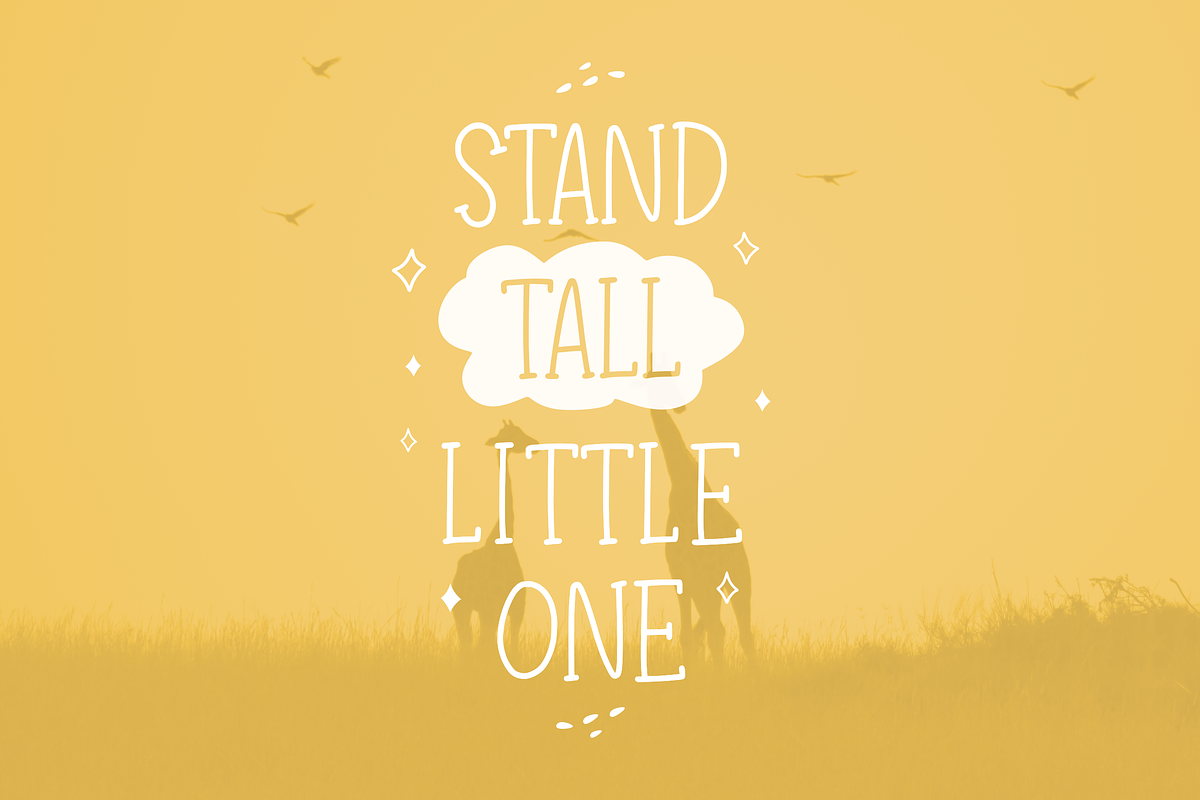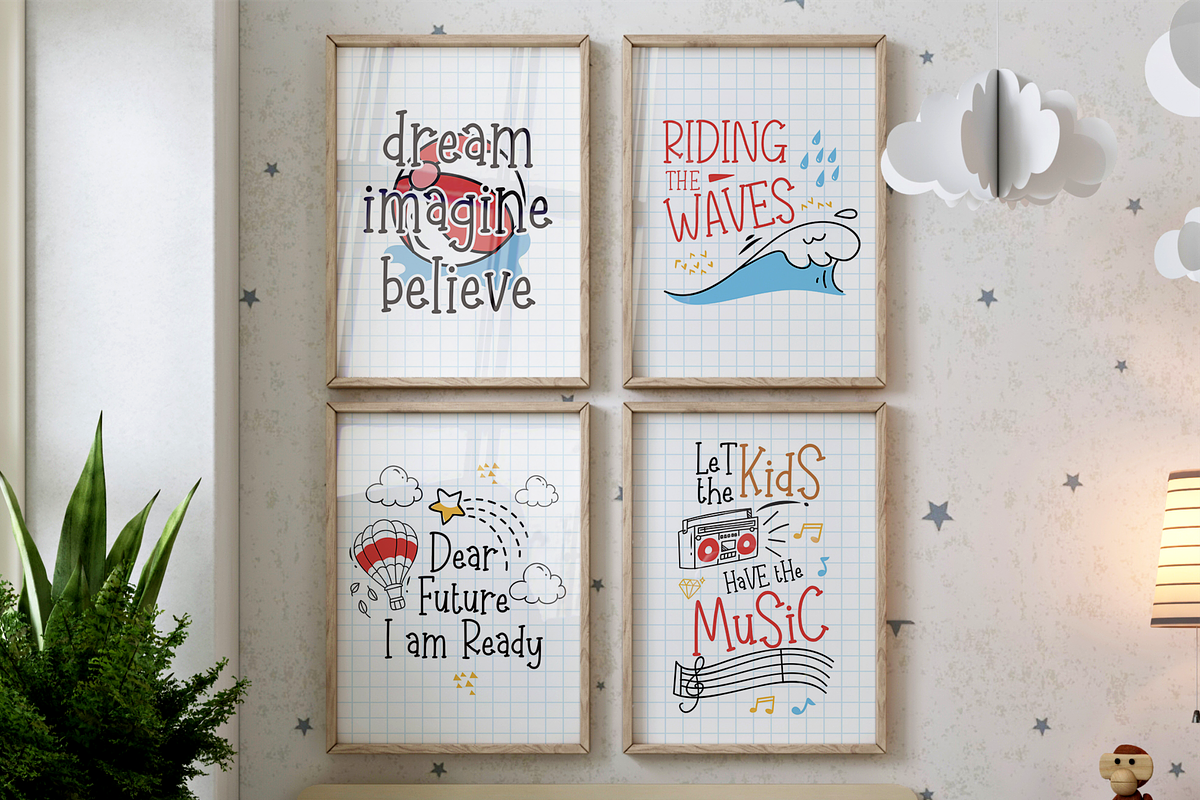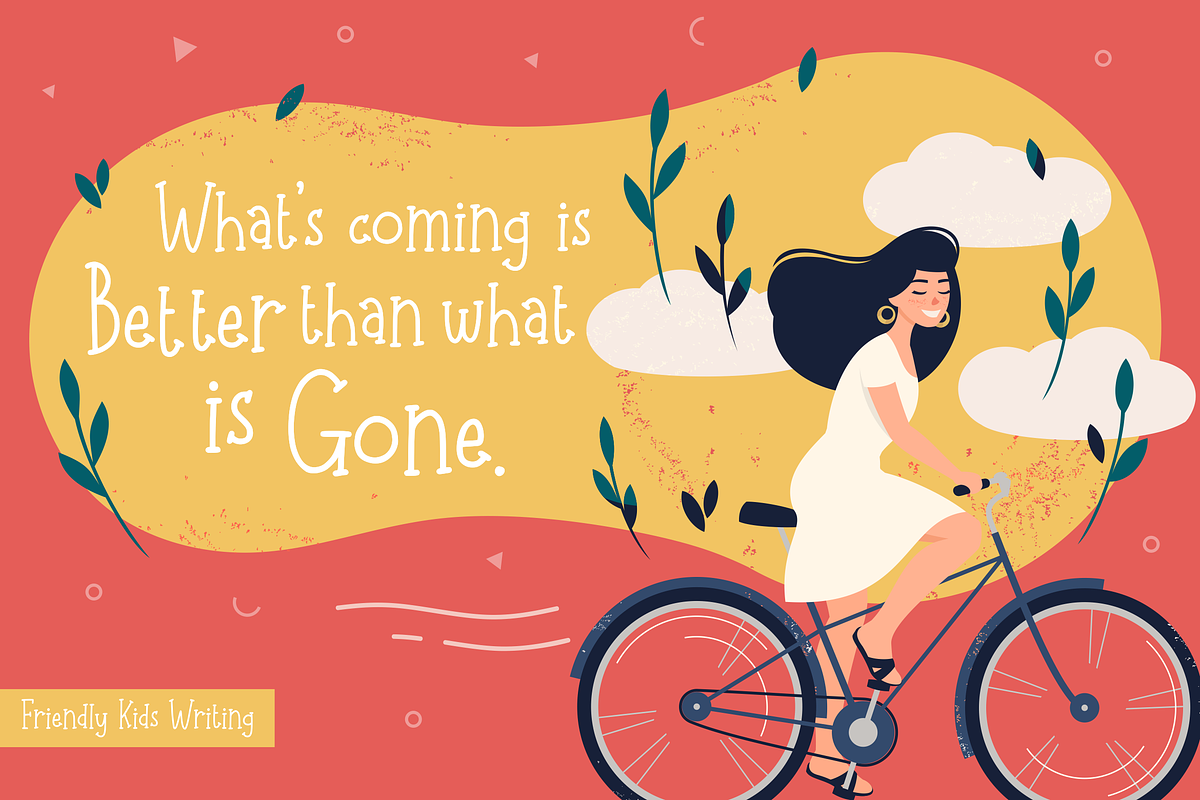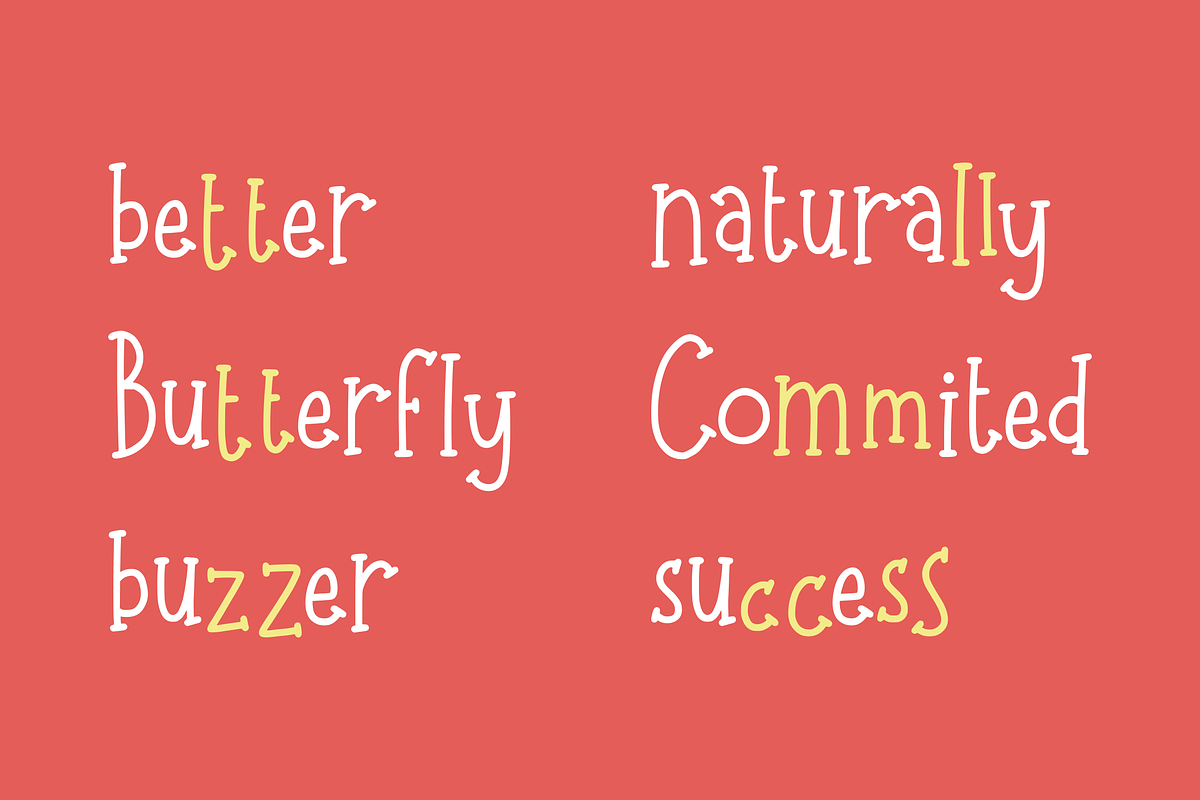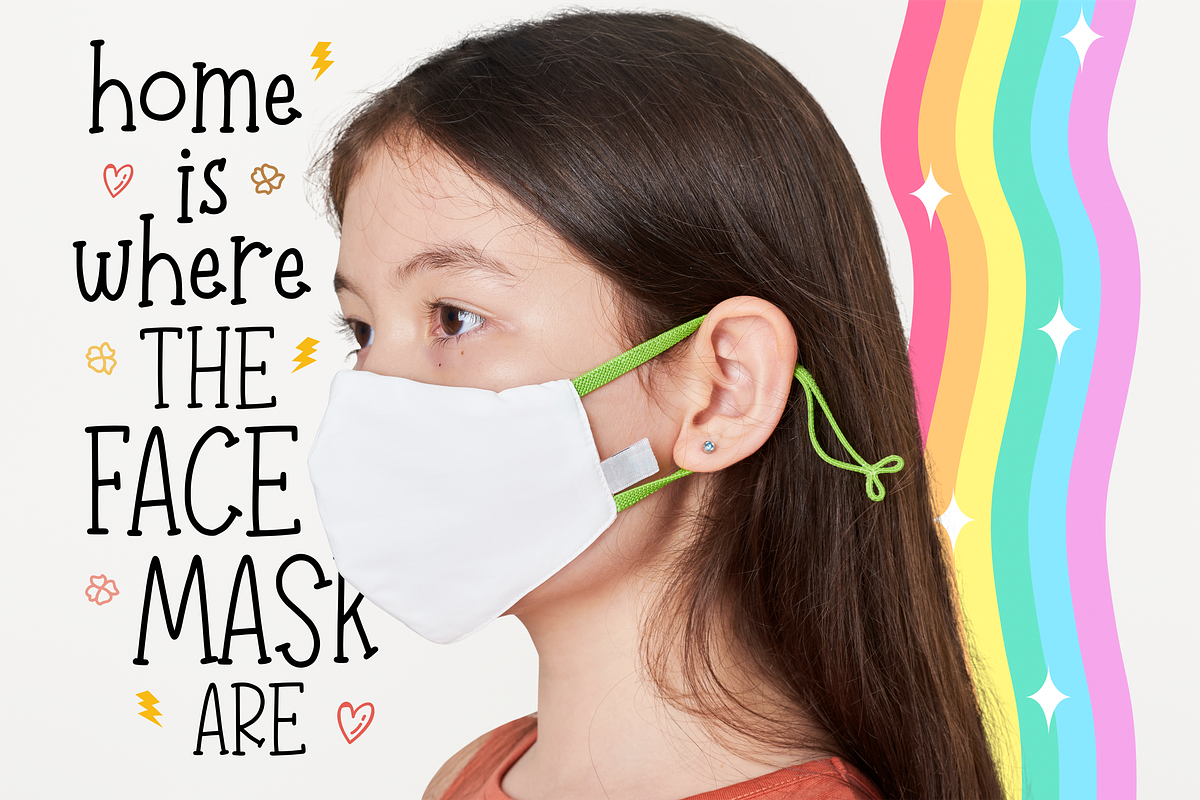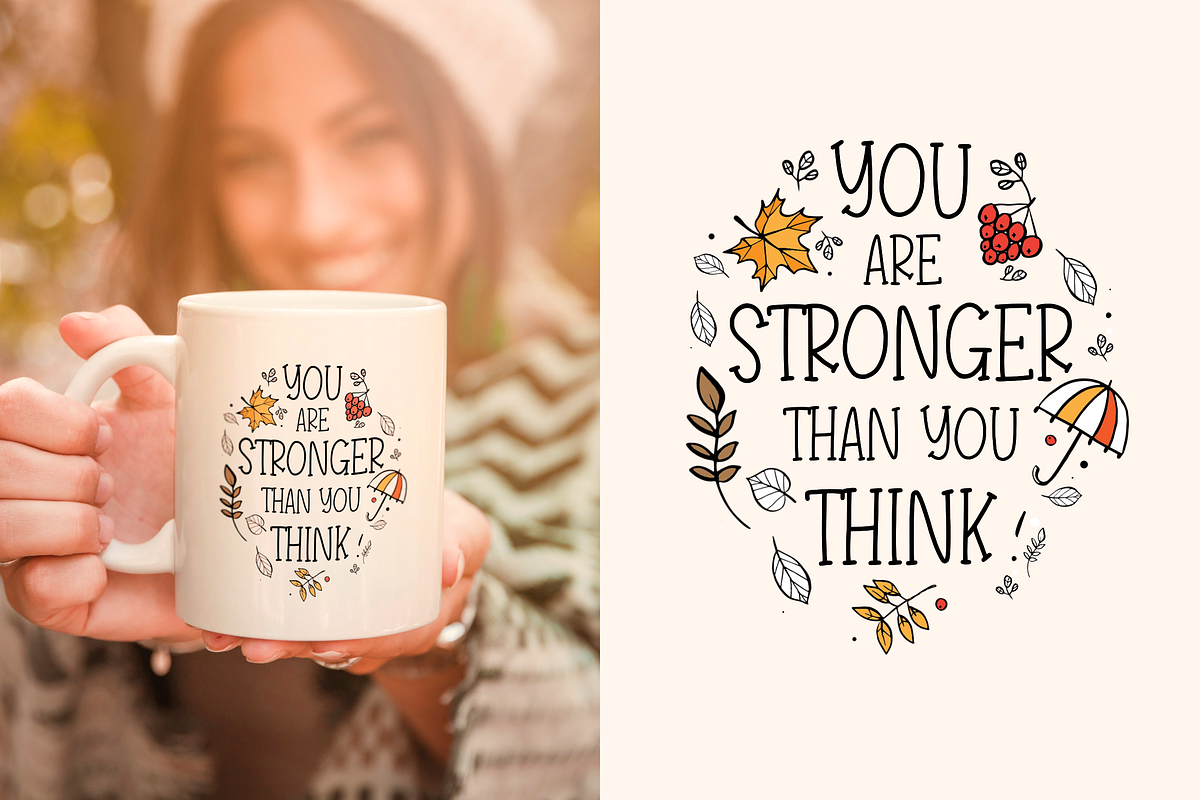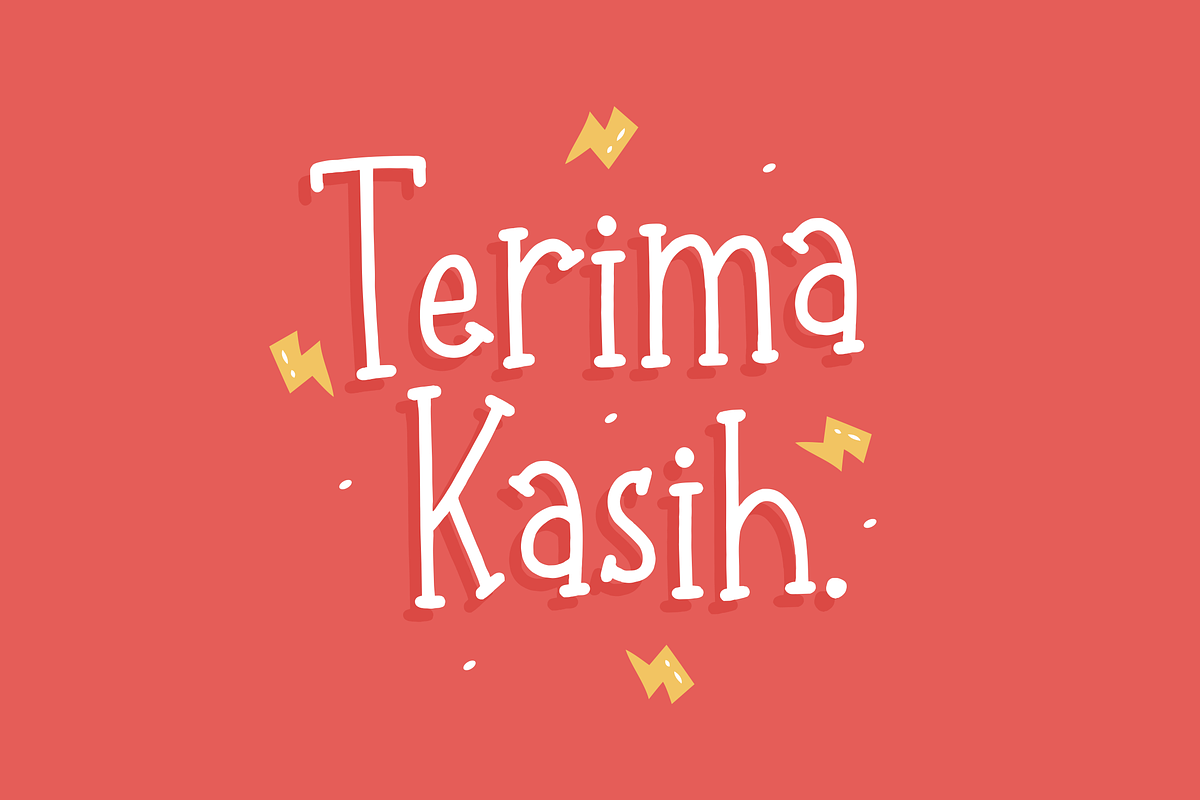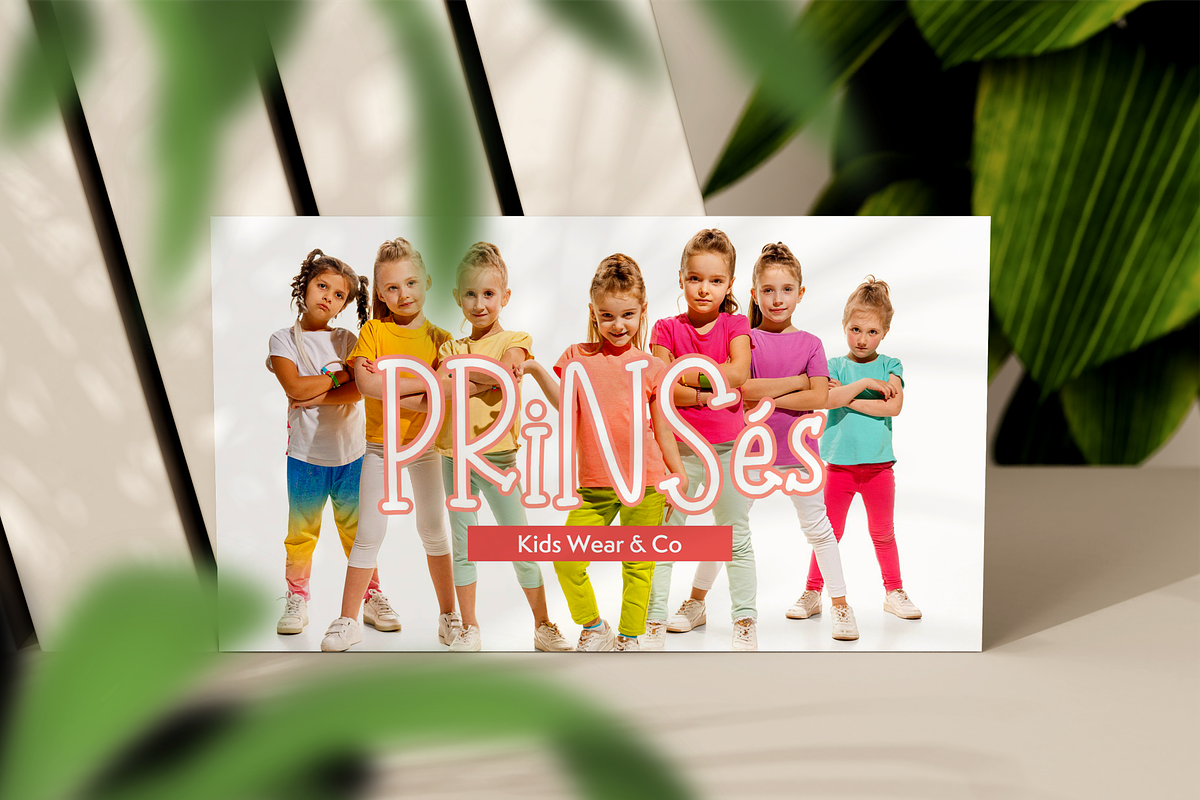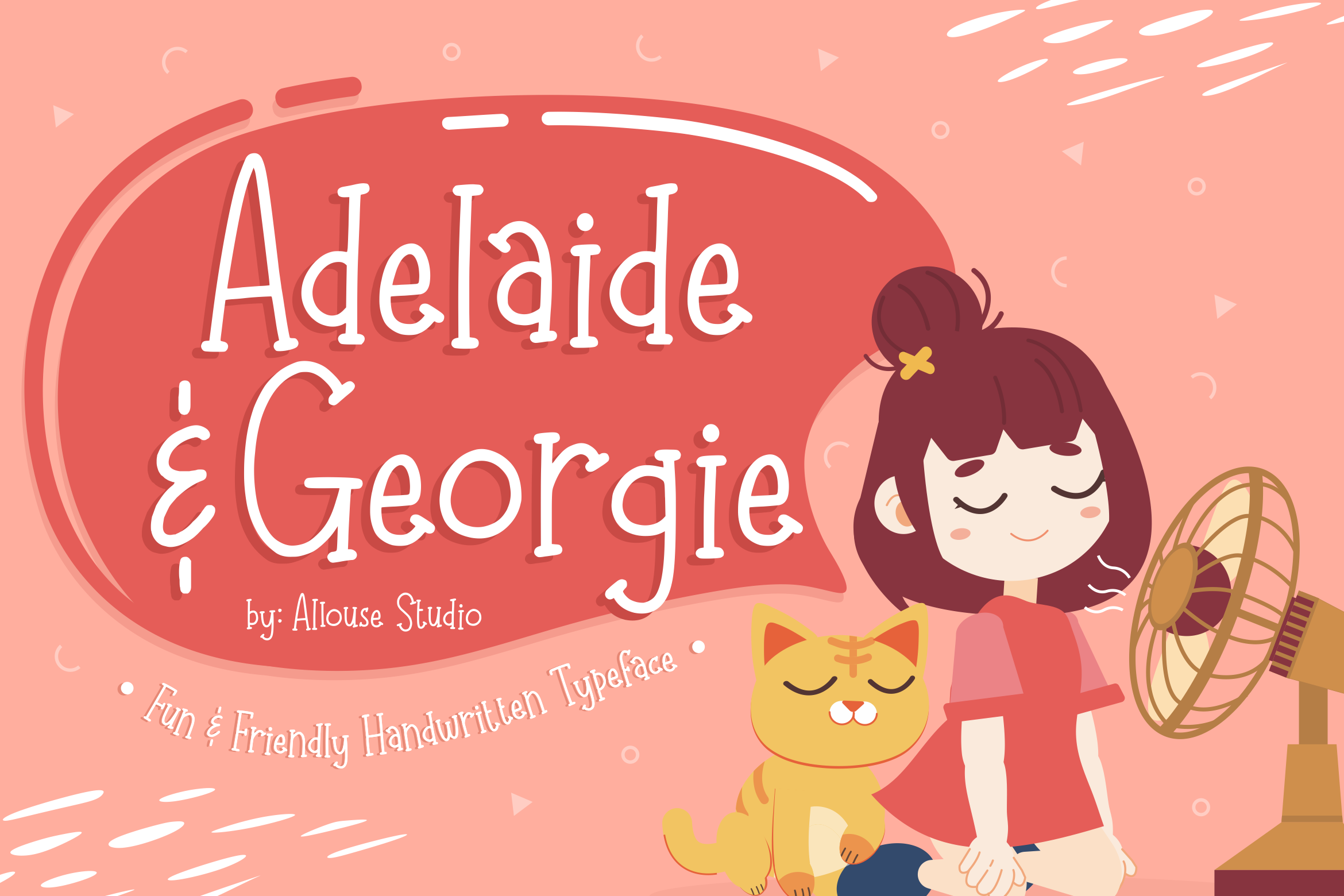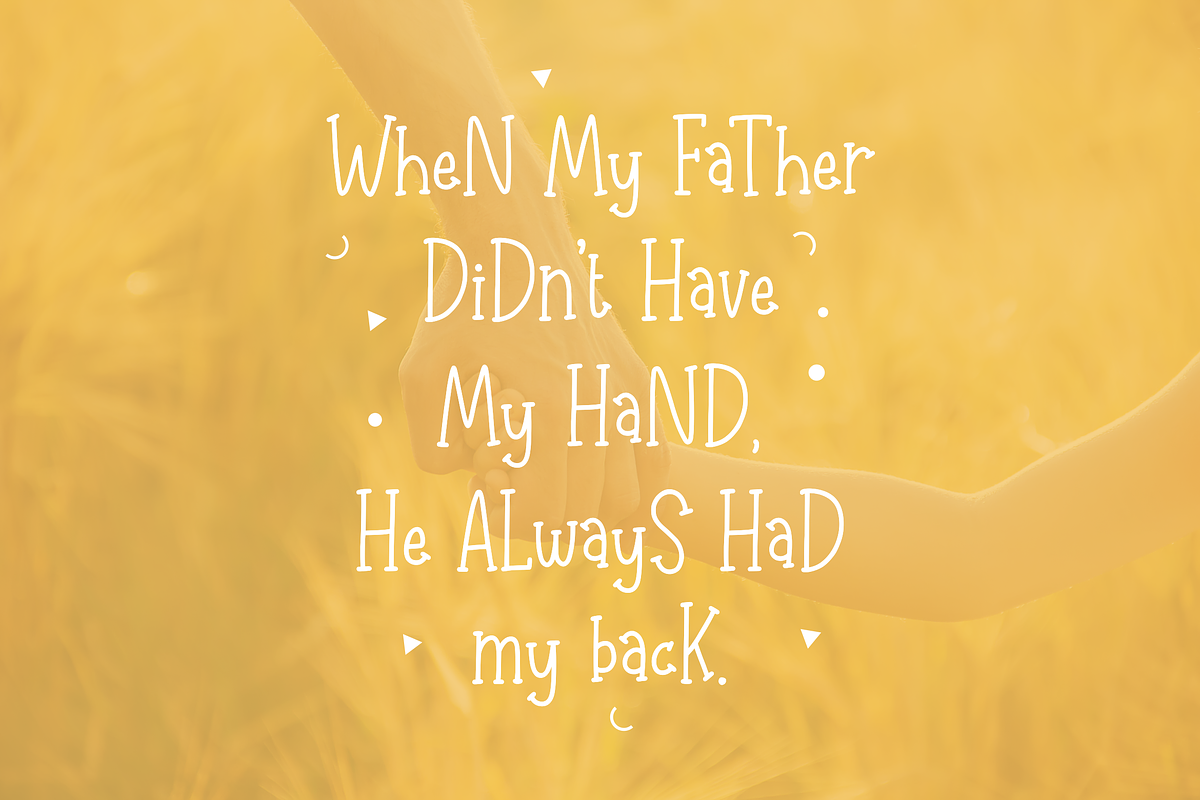
Adelaide & Georgie Font
Introducing by Allouse.Studio
Proudly Present, Adelaide & Georgie
Adelaide & Georgie is a Friendly Handwritten Typeface.
Adelaide & Georgie is perfect for product packaging, branding project, megazine, social media, wedding, or just used to express words above the background.